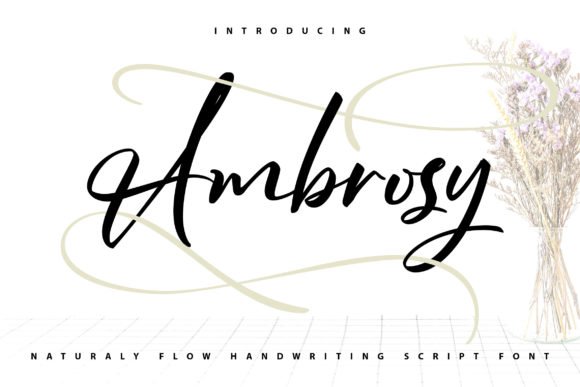
Have you ever been working on a design project and just couldn’t find the right font to bring your vision to life? You’ve scrolled through countless options, but nothing seems quite right. This is where the magic of the Ambrossy Font comes in – a chic, trendy script font that’s sure to give your project the confidence and style it needs.
The Ambrossy Font is more than just a pretty face; its stylish alternates and ligatures make it the perfect match for any project, from elegant invitations to modern logos. Whether you’re a seasoned designer or just starting out, this versatile font is a valuable addition to your toolkit. With its wide range of uses and effortless elegance, the Ambrossy Font is the perfect choice for anyone looking to elevate their design game.
Ambrossy Font Review
Initially, I was drawn to the Ambrossy Font due to its elegant and sophisticated design. ✨ The refined lines and subtle curves give it a high-end feel, making it perfect for luxury brands or high-end publications. The font also comes in a variety of weights, which adds to its versatility.
One of the things that stands out about Ambrossy is its legibility. ✨ The font is clear and easy to read, even at smaller sizes, making it suitable for body text or headings. The x-height is also well-proportioned, which contributes to its overall readability.
While Ambrossy is a beautiful font, it does have some limitations. ⚠️ The font’s design can make it look dated, particularly in modern designs. Additionally, the font’s weight distribution can make it look slightly uneven at certain sizes.
Overall, I think the Ambrossy Font is a solid choice for designers looking for a high-end, elegant font. However, it may not be the best fit for modern or edgy designs. With some careful styling and pairing with other fonts, Ambrossy can be a great addition to any design project.
- Refined lines and subtle curves for a high-end feel
- Available in a variety of weights for added versatility
- Clear and easy to read, even at smaller sizes
- Well-proportioned x-height for improved readability
- May look dated in modern designs
- Weight distribution can be uneven at certain sizes
Alternatives to Ambrossy Font
Comparison to Ambrossy Font: Montserrat is more minimalist and geometric, whereas Ambrossy Font has a more elegant and cursive feel. Montserrat is also more readable in small font sizes.
Lato is a modern sans-serif font that is highly customizable. It is a great choice for branding and corporate designs. Lato is a good alternative to Ambrossy Font when you need a professional and sophisticated look.
Comparison to Ambrossy Font: Lato is more geometric and clean, whereas Ambrossy Font has a more organic and cursive feel. Lato is also more versatile and can be used for a wide range of design applications.
Playfair Display is a luxurious serif font that is perfect for high-end branding and packaging designs. It is a great choice when you need to add a touch of elegance and sophistication to your design.
What is the recommended font size for using Ambrossy Font?
The recommended font size for Ambrossy Font varies depending on the intended use. For body text, a font size between 10-14 points is recommended. For headings, a font size between 18-24 points is recommended. However, these are general guidelines, and you may need to adjust the font size based on your specific design requirements and the intended audience.